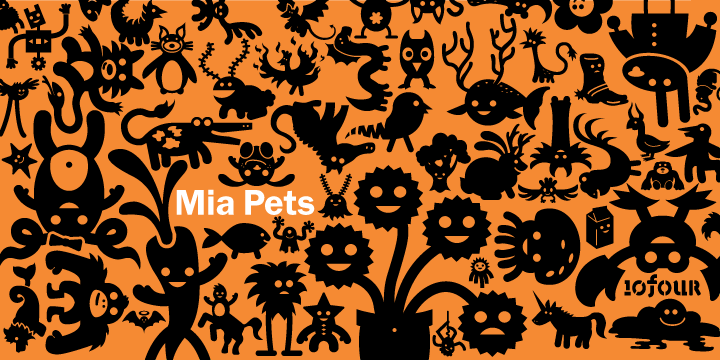
Mia is a 1 year old. She likes animals. But not just any old barnyard variety animals, she likes cute and fun, pseudo-animals that nobody else knows about.
Now she is willing to share her favorite “pets” with the world in this exclusive symbol font designed by 10four. Originally conceived as wall graphics for Mia’s bedroom, Mia Pets has been expanded to include 62 distinct icons. A collection of friendly creatures, now set free from Mia’s bedroom and ready for whatever mischief you can find for them... great for wall vinyl, web graphics, or T-shirt graphics!